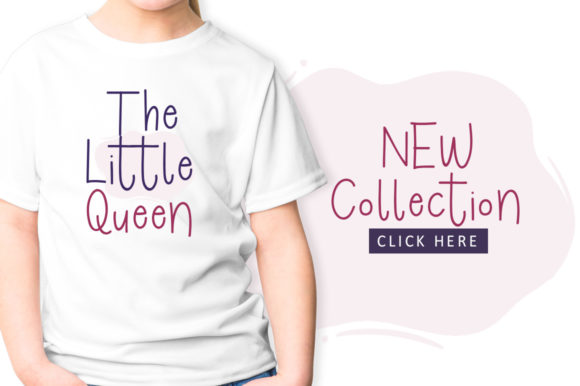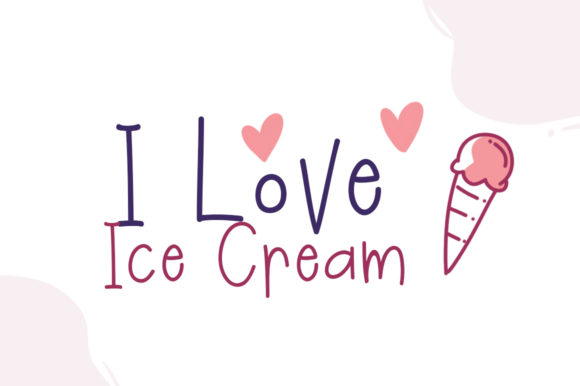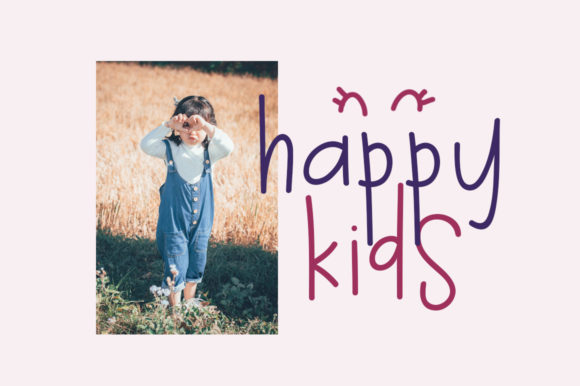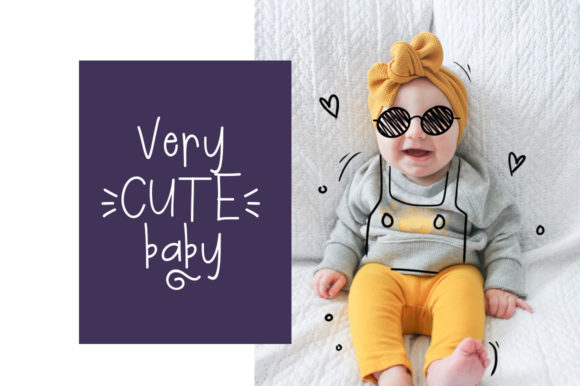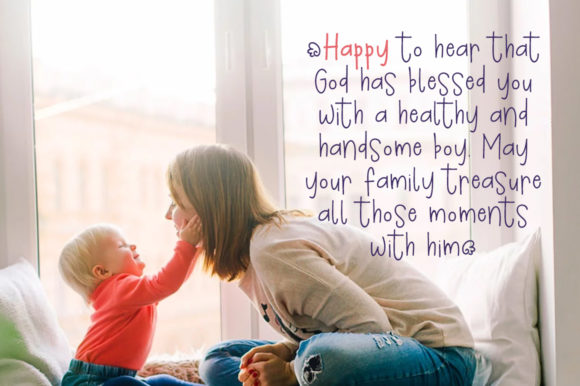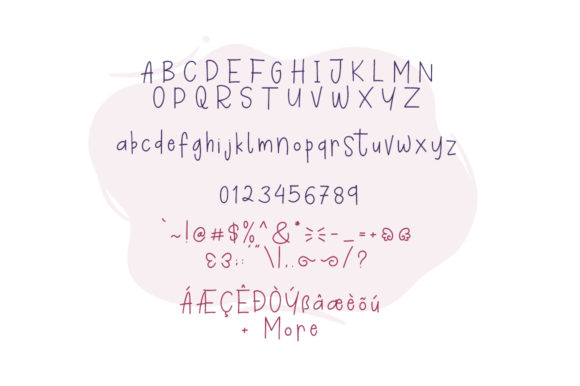
Baby Aura Font: The Ultimate Display Font for Creative Projects
Are you looking for a font that can add a personal touch to your creative projects? Look no further than the Baby Aura Font. This cute and whimsical display font is perfect for designers and crafters who want to add a playful feel to their work. In this article, we’ll explore the features and applications of the Baby Aura Font, and why it’s a must-have for any creative project.
What is Baby Aura Font?
Baby Aura Font is a display font designed to add a touch of whimsy and playfulness to your projects. Its cute and curly letters are perfect for creating eye-catching headlines, titles, and captions. The font is highly versatile and can be used for a wide range of applications, from greeting cards to posters, and even digital media.
Key Features of Baby Aura Font
- Cute and Whimsical Design: The Baby Aura Font features a unique and playful design that is sure to capture the attention of your audience.
- Highly Versatile: The font is perfect for a wide range of applications, from print to digital media.
- Easy to Read: Despite its playful design, the Baby Aura Font is easy to read, making it perfect for headlines, titles, and captions.
- Personal Touch: The font adds a personal touch to your projects, making them stand out from the crowd.
Applications of Baby Aura Font
The Baby Aura Font is perfect for a wide range of creative projects, including:
- Greeting Cards: Add a personal touch to your greeting cards with the Baby Aura Font.
- Headlines and Titles: Use the font to create eye-catching headlines and titles for your posters, flyers, and brochures.
- Digital Media: The font is perfect for digital media, including social media graphics, blog posts, and website headers.
- Crafting Projects: Use the Baby Aura Font to add a personal touch to your crafting projects, such as scrapbooking, card making, and DIY home decor.
Why Choose Baby Aura Font?
There are many reasons why you should choose the Baby Aura Font for your creative projects. Here are a few:
- Unique Design: The font features a unique and playful design that is sure to capture the attention of your audience.
- High Quality: The font is of high quality, making it perfect for both print and digital media.
Tips for Using Baby Aura Font
Here are a few tips for using the Baby Aura Font in your creative projects:
- Use it Sparingly: Use the font sparingly to add emphasis to your headlines, titles, and captions.
- Pair it with Other Fonts: Pair the Baby Aura Font with other fonts to create a unique and interesting contrast.
- Experiment with Colors: Experiment with different colors to find the perfect combination for your project.
In conclusion, the Baby Aura Font is a must-have for any designer or crafter looking to add a personal touch to their creative projects. Its cute and whimsical design, versatility, and ease of use make it perfect for a wide range of applications. Whether you’re creating greeting cards, headlines, or digital media, the Baby Aura Font is sure to capture the attention of your audience and add a touch of playfulness to your work.